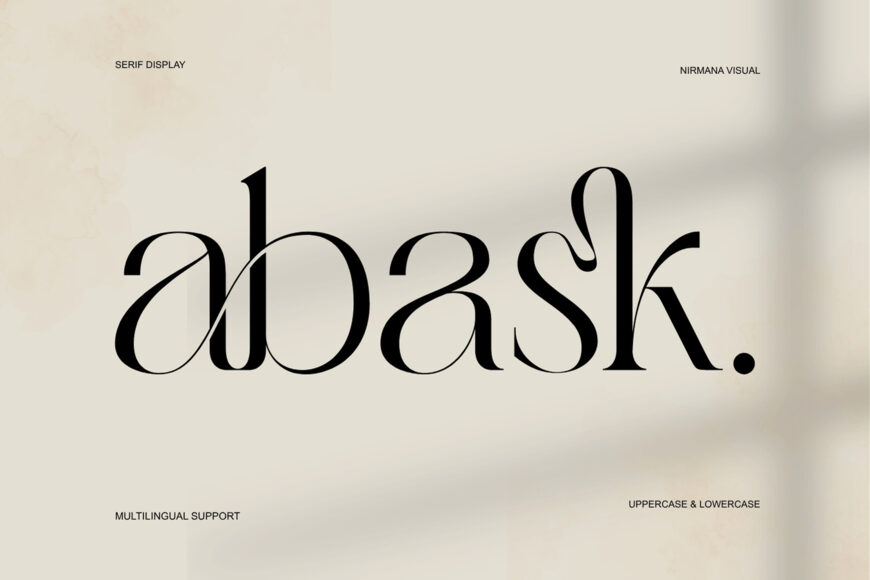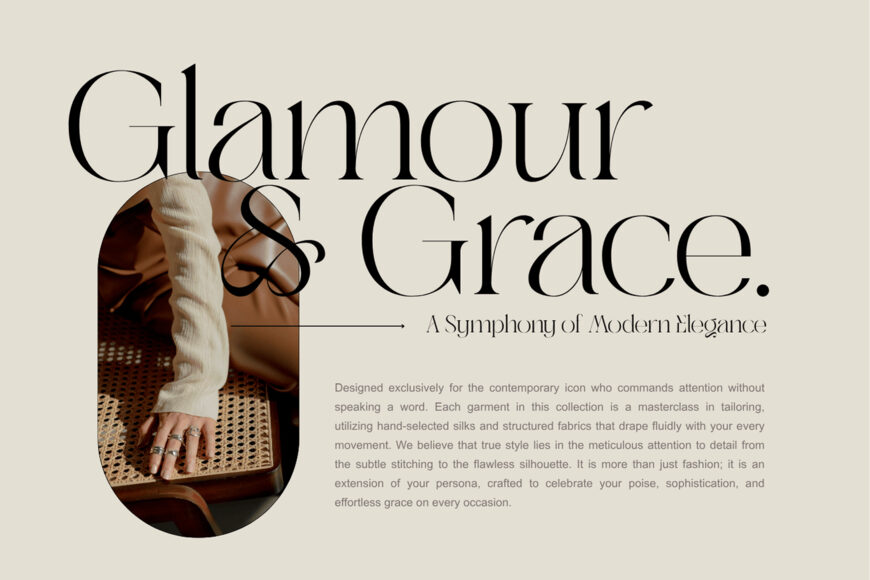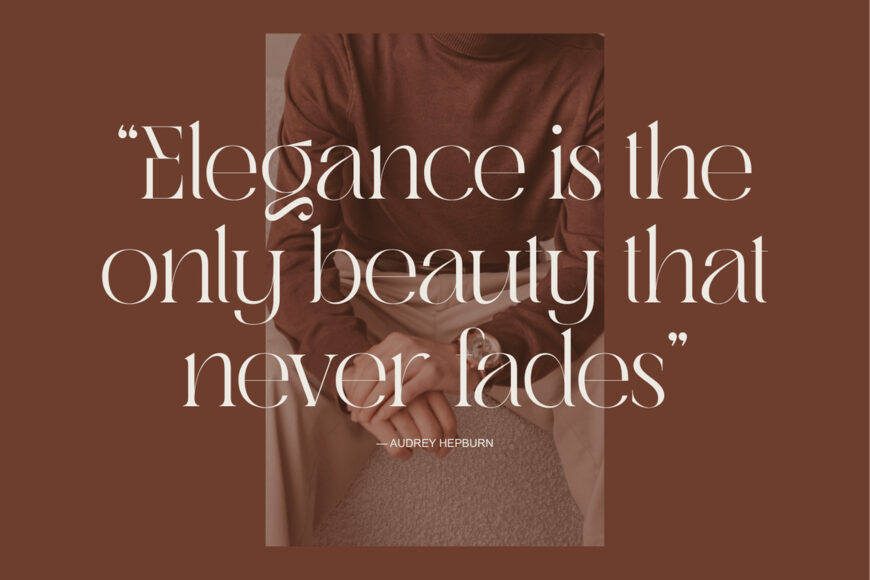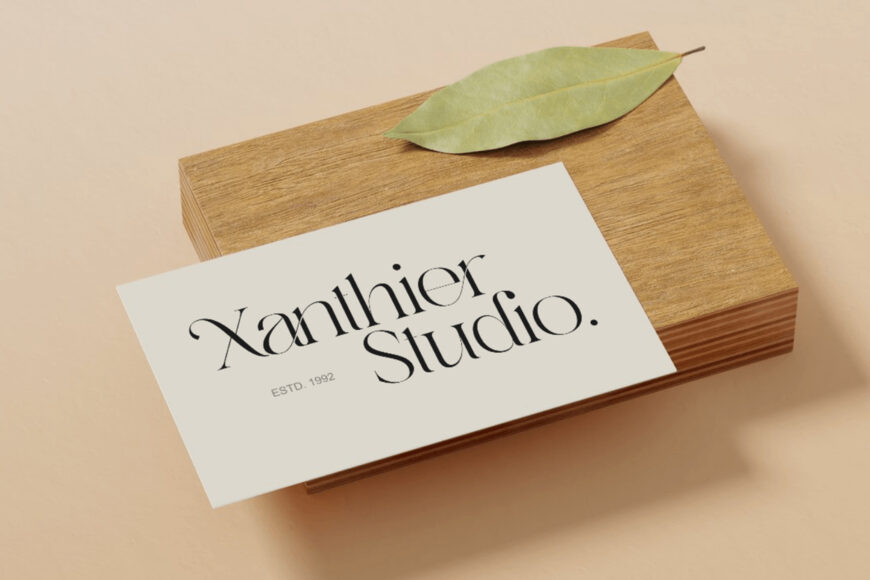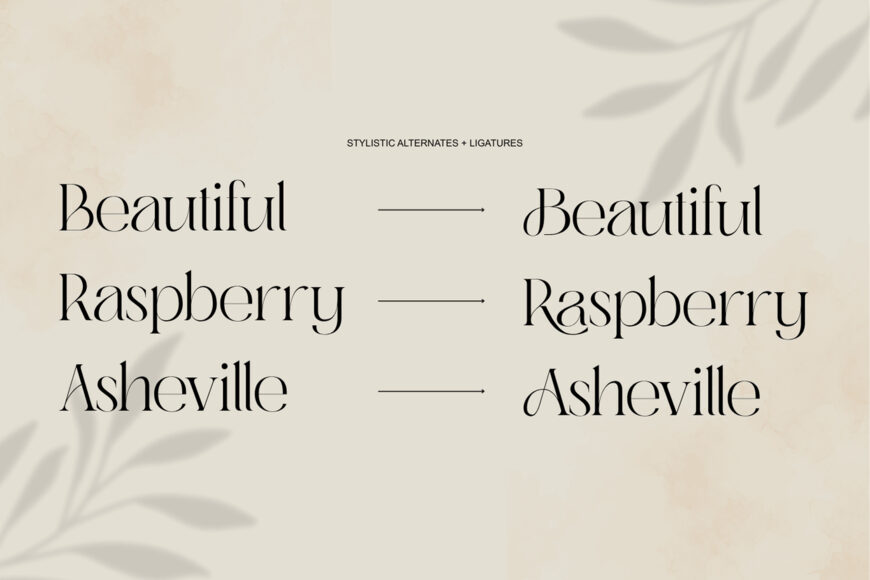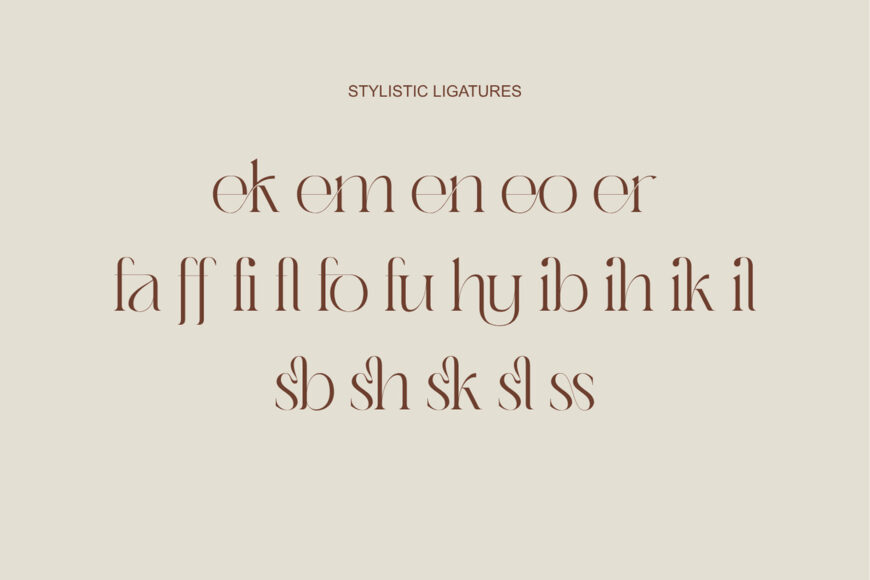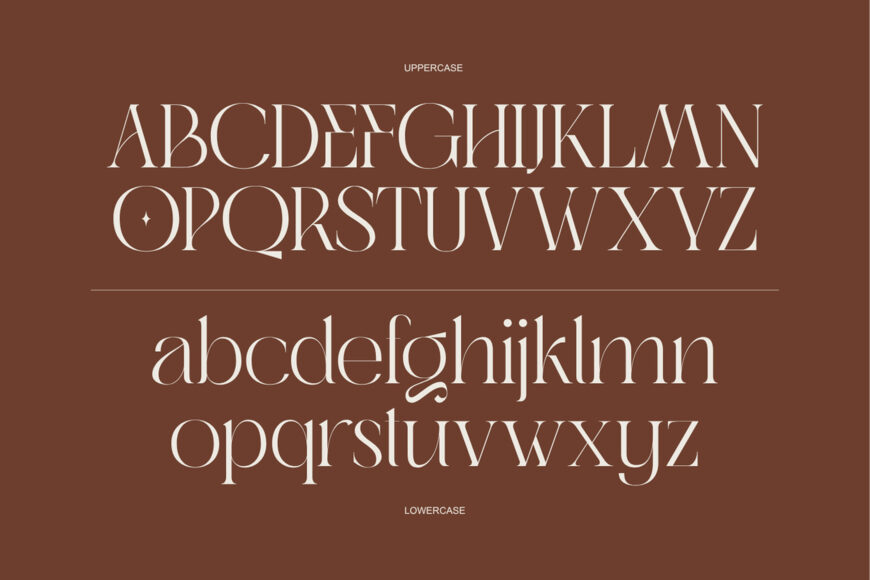
Abask Font
Elevate the aesthetic of your design projects with Abask, an elegant, luxurious, and sophisticated modern serif font. Crafted with love by Nirmana Visual, this font is designed to give your creative work a professional and breathtaking touch.
Featuring Ligatures, Abask offers high flexibility, allowing you to create unique, artistic, and strong character letter combinations. It is perfectly suited for a wide variety of design needs such as branding logos, premium product packaging, magazines, editorial titles, and elegant wedding invitations.